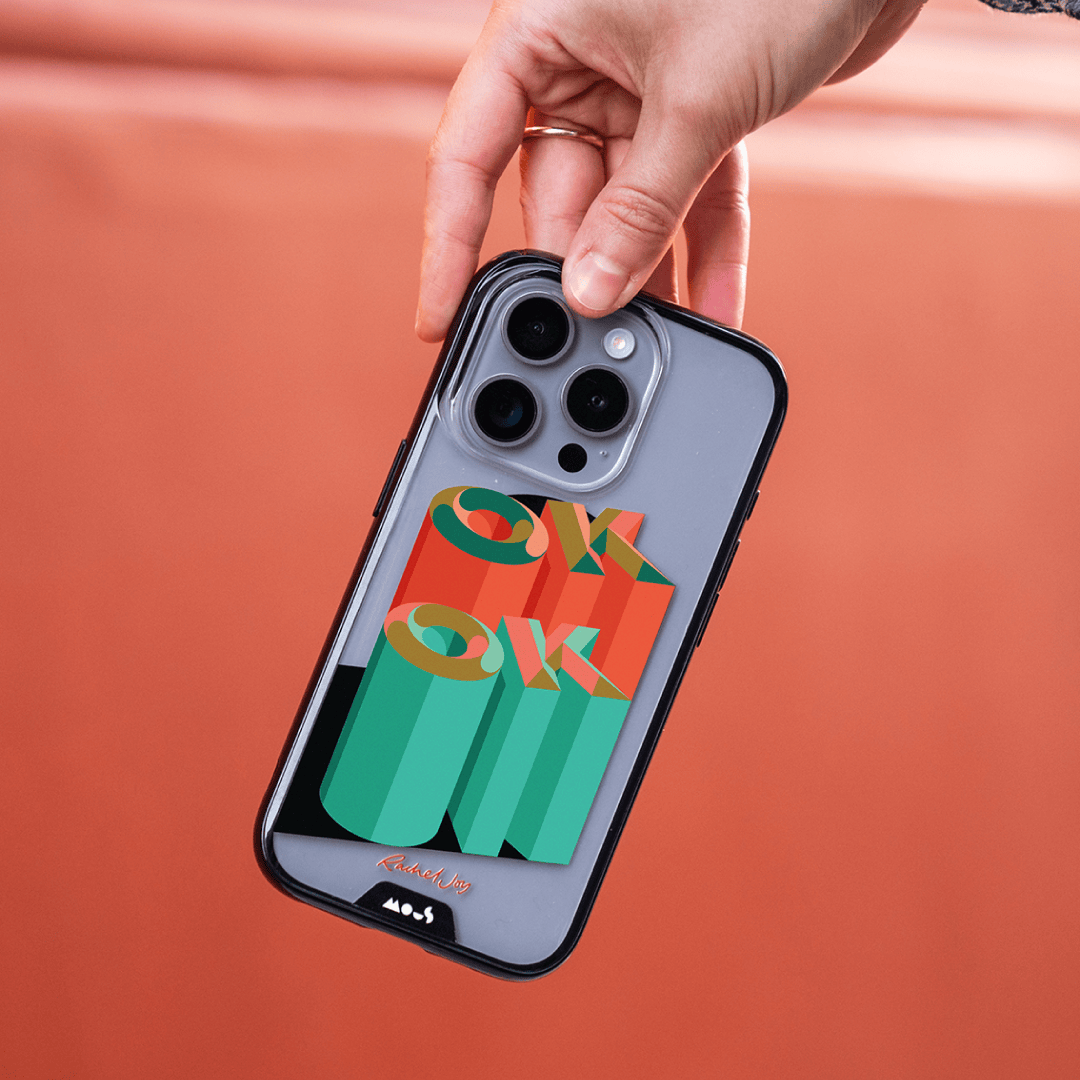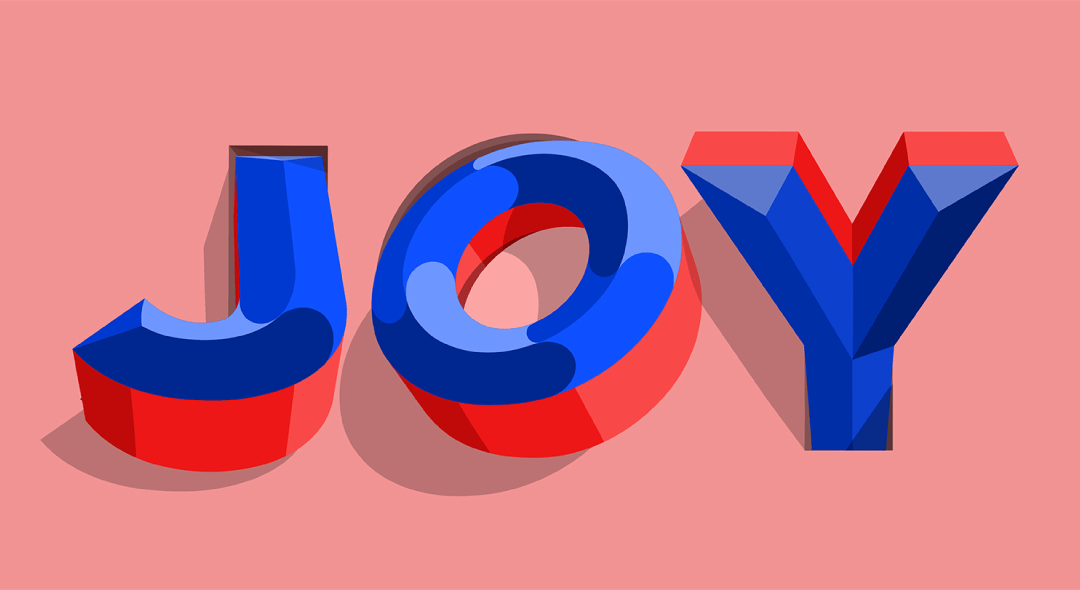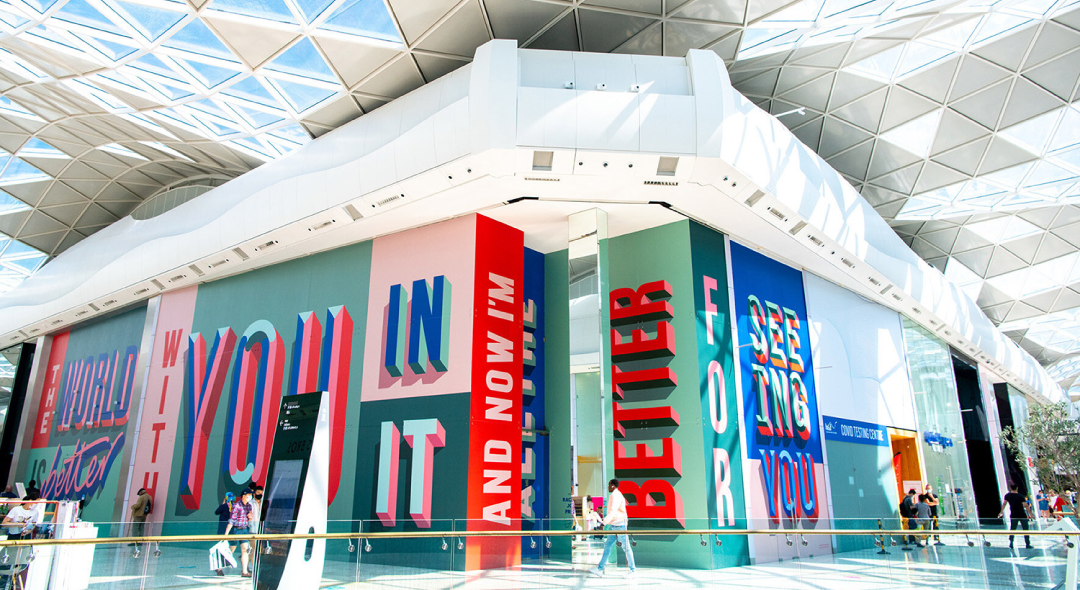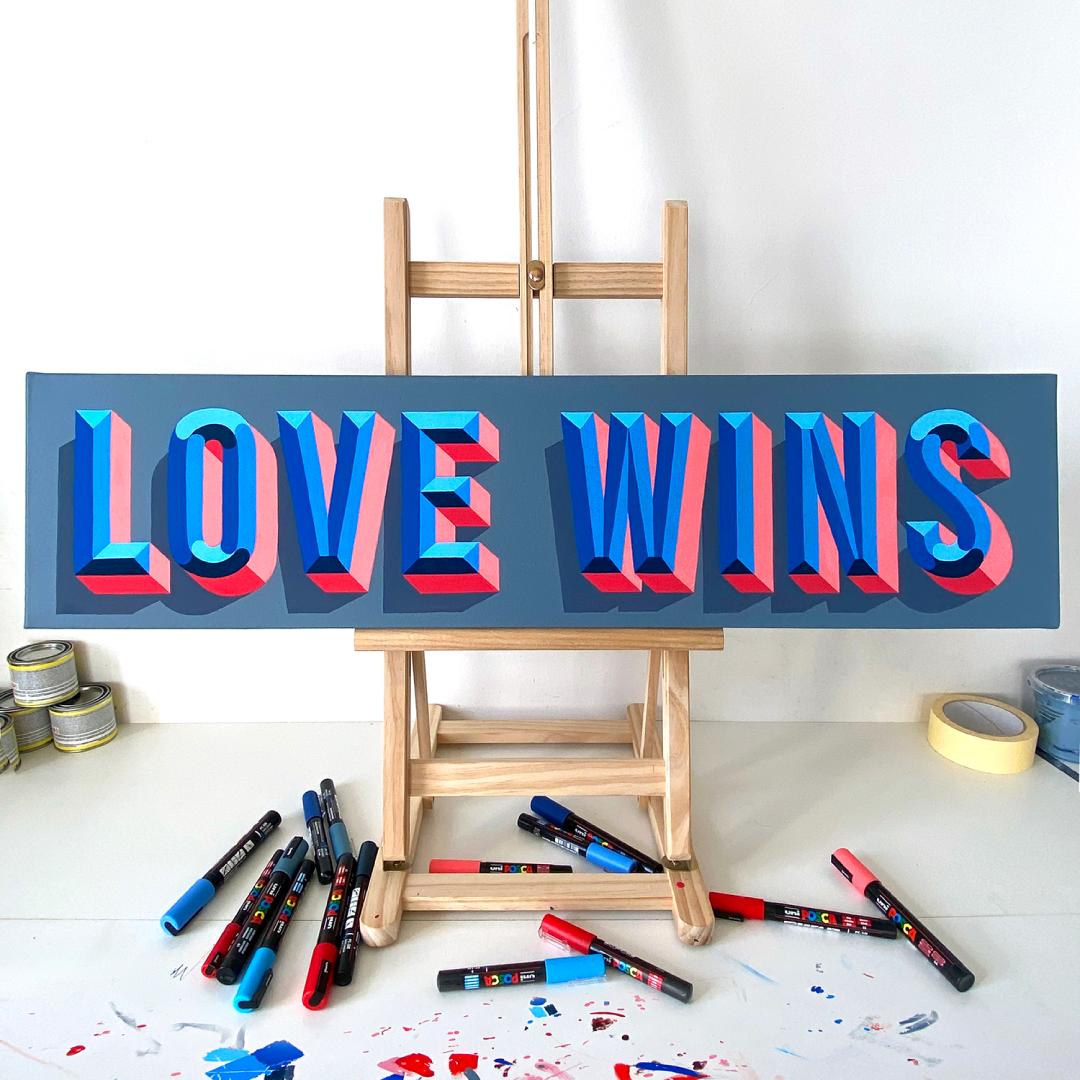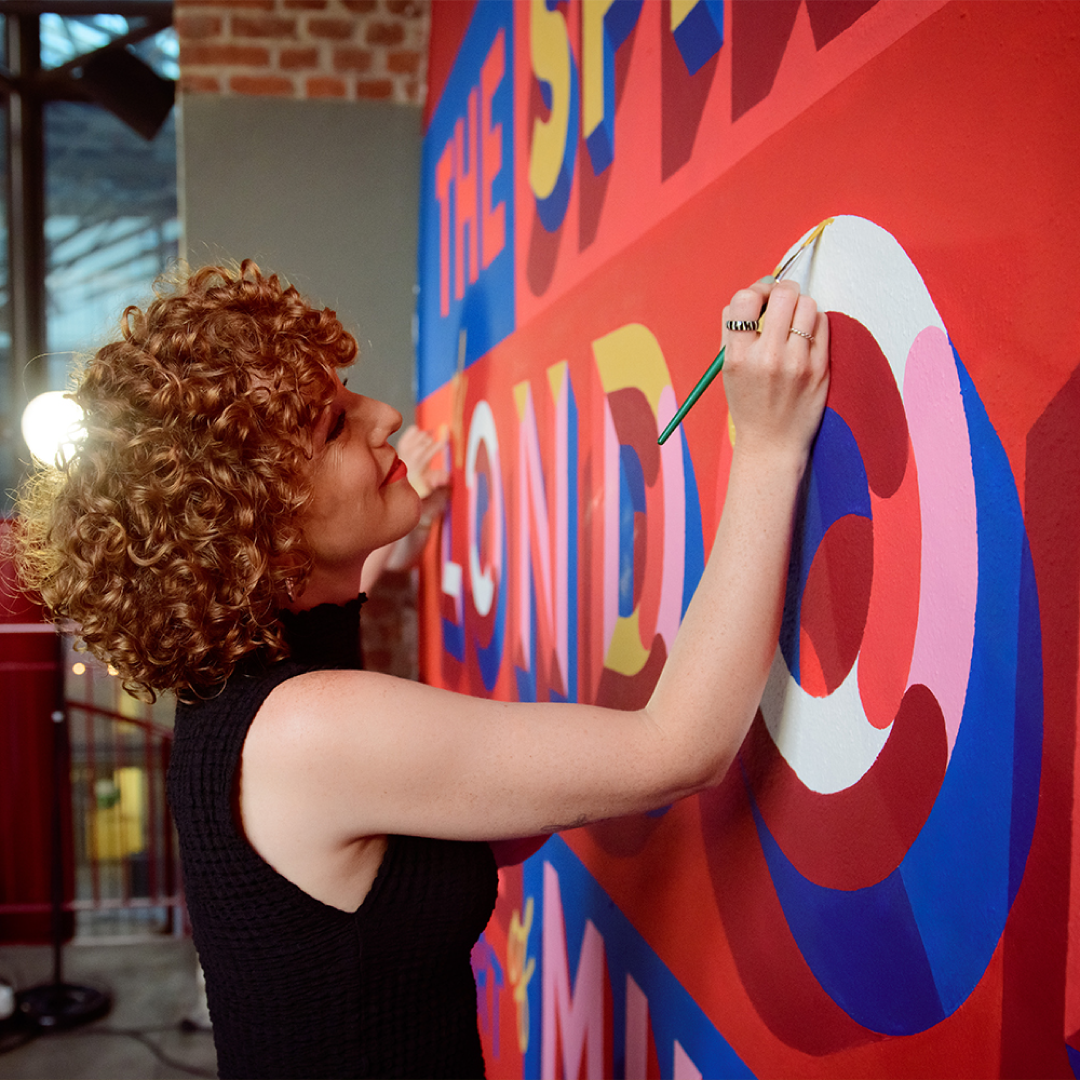
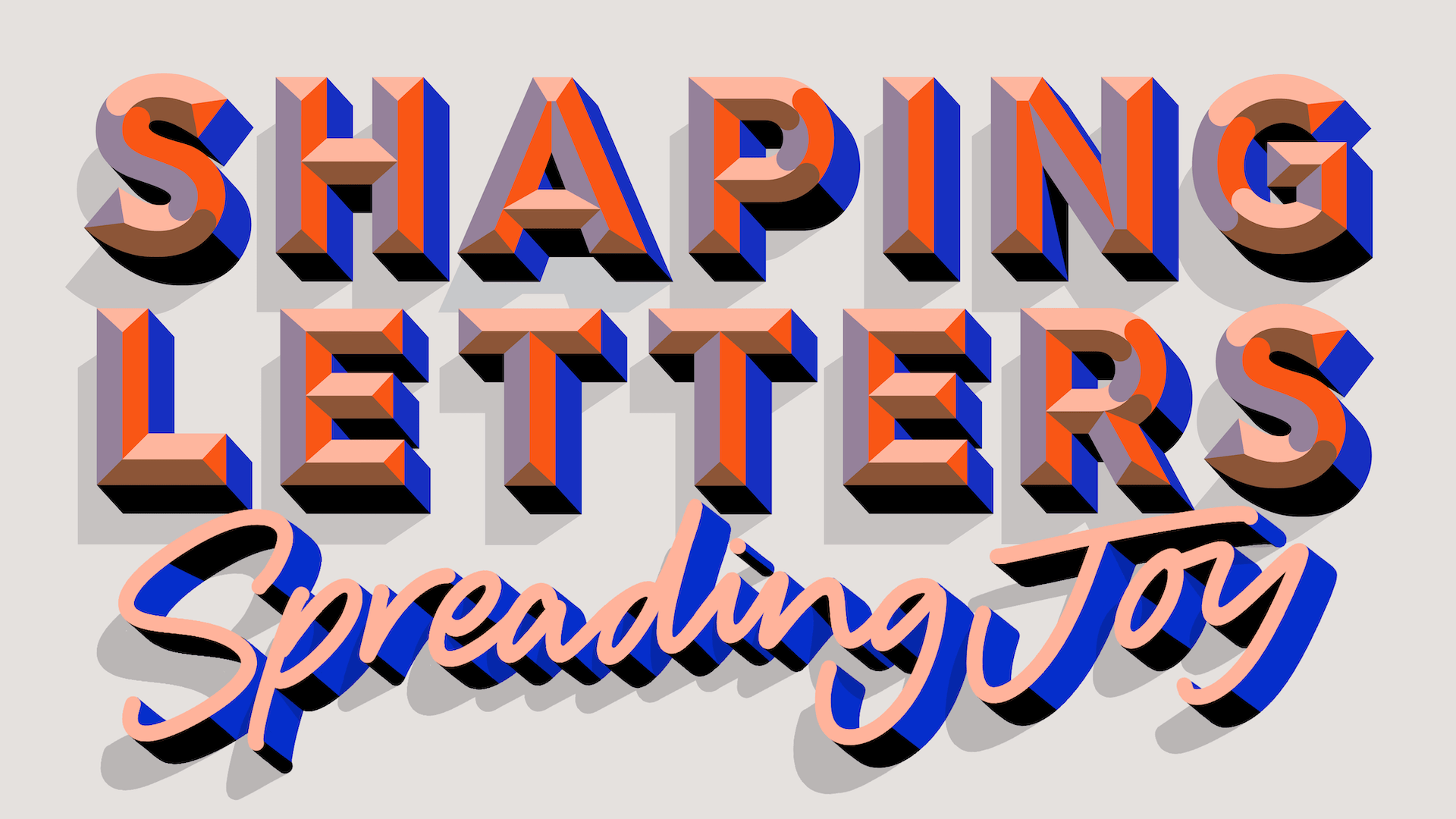
Rachel Joy will take you on a whistle-stop tour of her journey to a life full of letters (including her connection to the Titanic!) She will share some of her favourite jobs shaping letters for brands worldwide, and the projects that have given her blank canvases on which to spread joy in the shape of large 3D colourful words…
Rachel Joy is a lettering artist based between Paris and London. Routed in the traditional craft of sign painting (inspired by her Great Grandfather), she has developed her own style with 3D letters. She aims to evoke positivity through her work, using exaggerated and playful forms along with bold colour combinations. Rachel has crafted letters for brands worldwide, working on smaller canvases of packaging and print through to adding colour and joy to big public walls.